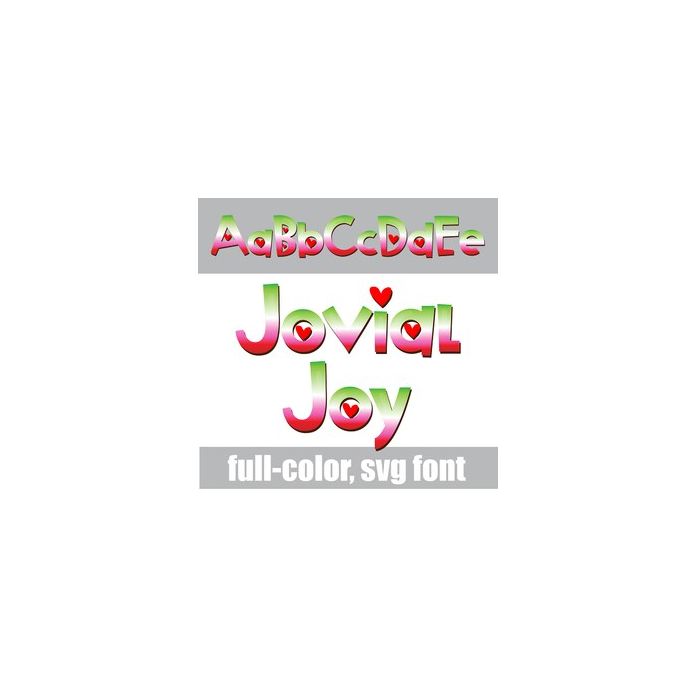
This full-color font features a rainbow of Christmas colors and hearts. This font works best for titles, displays, posters and more. Please note color fonts will show as black in non compatible programs. This font type is compatible with Silhouette Studio.